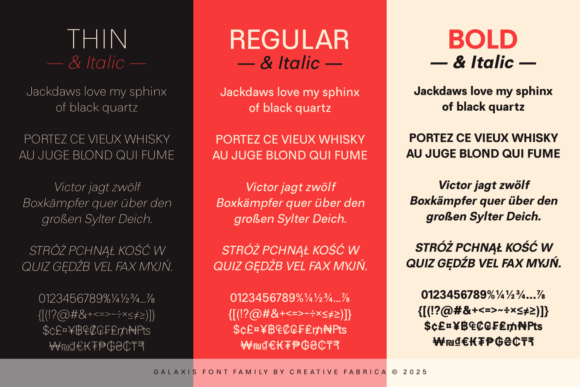
Introducing Galaxis Font: The Ultimate Sans-Serif Typeface for Modern Designs
In the world of typography, a font can make or break a design. With the ever-evolving landscape of visual communication, it’s essential to have a typeface that not only captures attention but also conveys a message with clarity and sophistication. Meet Galaxis, a sleek and contemporary sans-serif font family that embodies the perfect blend of classic elegance and modern minimalism.
Inspiration from the Timeless Univers Font
Galaxis draws inspiration from the iconic Univers Font, a typeface renowned for its timeless elegance and versatility. Univers, designed by Adrian Frutiger in 1957, has been a staple in the world of typography, admired for its geometric structure and legibility. Galaxis takes these core principles and infuses them with a modern twist, creating a font family that is both nostalgic and forward-thinking.
A Perfect Blend of Classic Sophistication and Modern Minimalism
Galaxis effortlessly blends classic sophistication with modern minimalism, making it an ideal typeface for a wide range of design applications. Its precise geometric structure and refined letterforms ensure exceptional readability and visual harmony across all designs. Whether you’re working on branding, editorial layouts, web interfaces, or impactful headlines, Galaxis provides the perfect balance of form and function.
Key Features of Galaxis Font
- 6 Elegant Styles: Galaxis comes in six elegant styles, ranging from Thin to Bold Italic, offering a versatile range of options to suit various design needs.
- Precise Geometric Structure: Galaxis boasts a precise geometric structure, ensuring exceptional readability and visual harmony across all designs.
- Refined Letterforms: The font features refined letterforms, carefully crafted to provide a touch of cosmopolitan charm to any design.
- Multilingual Support: Galaxis supports multiple languages, making it an excellent choice for global brands and designers.
Applications of Galaxis Font
Galaxis is a versatile typeface suitable for a wide range of design applications, including:
- Branding: Use Galaxis to create a strong brand identity with its clean and sophisticated lines.
- Editorial Layouts: Galaxis is perfect for editorial layouts, providing exceptional readability and visual harmony.
- Web Interfaces: The font’s precise geometric structure makes it an excellent choice for web interfaces, ensuring a seamless user experience.
- Impactful Headlines: Galaxis’s bold styles are perfect for creating attention-grabbing headlines that convey a message with clarity and sophistication.
Why Choose Galaxis Font?
With the numerous font options available, why choose Galaxis? Here are a few compelling reasons:
- Unique Blend of Style and Functionality: Galaxis offers a unique blend of classic sophistication and modern minimalism, making it an excellent choice for designers seeking a typeface that stands out.
- Exceptional Readability: Galaxis ensures exceptional readability across all designs, making it perfect for body text and headlines.
- Professionalism: The font’s precise geometric structure and refined letterforms convey a sense of professionalism, making it ideal for businesses and brands.
In conclusion, Galaxis is a sleek and contemporary sans-serif font family that embodies the perfect blend of classic elegance and modern minimalism. With its precise geometric structure, refined letterforms, and versatile range of styles, Galaxis is the ultimate typeface for modern designs. Whether you’re working on branding, editorial layouts, web interfaces, or impactful headlines, Galaxis is ready to elevate your next creative project with clarity, professionalism, and a touch of cosmopolitan charm.